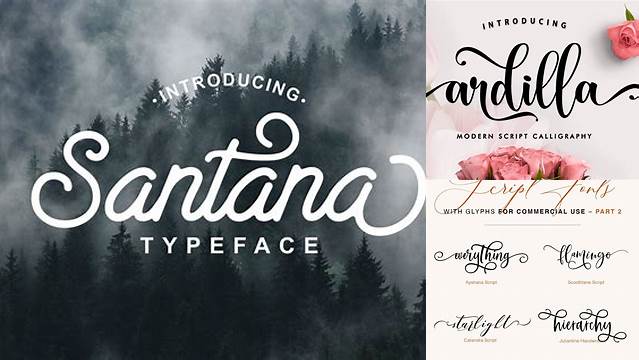
Download Free Script Fonts For Stunning Designs
Hey guys! Ever scrolled through amazing designs and wondered what that elegant, flowing font is? Chances are, it's a script font! Script fonts are super popular for adding a touch of class, personality, and a handwritten feel to your projects. The best part? There are tons of free script fonts out there, just waiting to be discovered. But with so many options, finding the perfect one can feel like searching for a needle in a haystack. Don't worry, though! This article is your ultimate guide to the world of free script fonts. We'll explore everything from where to find them, how to use them, and even some of the best free script fonts available right now. So, let's dive in and unlock the magic of script fonts!
What are Script Fonts?
So, what exactly are script fonts? Well, imagine the flowing, connected strokes of handwriting brought to life in digital form. That's essentially what a script font is! Free script fonts mimic the cursive style of handwriting, adding a touch of elegance and personality to any design. Unlike your standard blocky fonts, free script fonts have a more organic and fluid feel, making them perfect for projects where you want to convey a sense of warmth, creativity, or sophistication. Think wedding invitations, logos, quotes, and even website headers. Script fonts come in various styles, from formal and traditional to playful and modern, so there's definitely a script font out there to match your unique vision. Understanding the nuances of script fonts, such as stroke thickness, letter connections, and overall style, is key to using them effectively in your designs.
Why Use Free Script Fonts?
You might be wondering, why even bother with free script fonts when there are paid options available? Well, for starters, free script fonts are a fantastic way to elevate your designs without breaking the bank! Whether you're a student, a freelancer just starting out, or simply working on a personal project, free script fonts offer a cost-effective solution for adding that special touch. Plus, the sheer variety of free script fonts available is staggering. You can find everything from elegant calligraphy-style fonts to whimsical and playful scripts, ensuring you'll always have the perfect font for the job. Using free script fonts also allows you to experiment and try out different styles without committing to a purchase. This is especially helpful if you're not sure which script font will best suit your project. So, go ahead and explore the world of free script fonts – you might just be surprised at what you discover!
Where to Find the Best Free Script Fonts
Types of Free Script Fonts
Let's talk about the different types of free script fonts you'll encounter. It's not just one big category, you know! There's a whole spectrum of styles, each with its own unique personality. You've got your classic calligraphy-style scripts, which are elegant and formal, perfect for wedding invitations or branding for high-end businesses. Then there are the more modern and casual script fonts, which feel more handwritten and personal. These are great for logos, social media graphics, and website headers where you want to add a touch of warmth and authenticity. Free script fonts also come in various weights and thicknesses, from delicate and thin to bold and impactful. This allows you to choose a font that suits the specific needs of your project. Think about the overall tone and message you want to convey and then select a script font that aligns with that vision.
Calligraphy Script Fonts
Calligraphy script fonts are the epitome of elegance and sophistication. They mimic the graceful strokes of traditional calligraphy, making them ideal for projects that demand a touch of class. Think wedding invitations, elegant logos, and high-end branding materials. Free script fonts in this category often feature delicate lines, flowing curves, and beautiful flourishes. They evoke a sense of timeless beauty and are perfect for creating a sense of formality and refinement. When using calligraphy free script fonts, it's important to consider the readability of the text. Too many flourishes or overly intricate letterforms can make the font difficult to read, especially in smaller sizes. Choose a calligraphy script font that strikes a balance between beauty and legibility to ensure your message is clear and impactful.
Cursive Script Fonts
Cursive script fonts are similar to calligraphy fonts, but they often have a more casual and approachable feel. They mimic the flowing, connected letters of everyday handwriting, making them perfect for projects where you want to convey a sense of warmth and authenticity. Free script fonts in this style are great for creating a personal touch, such as in handwritten notes, signatures, or informal invitations. They're also a popular choice for logos and branding materials that aim to project a friendly and approachable image. When selecting cursive free script fonts, pay attention to the letter connections and the overall flow of the text. A well-designed cursive font should be easy to read and have a natural, organic feel.
Handwritten Script Fonts
Handwritten script fonts are all about capturing the unique character and personality of actual handwriting. They often feature slight imperfections and variations in stroke thickness, which adds to their charm and authenticity. These free script fonts are perfect for projects where you want to create a personal and relatable feel, such as in blog headers, social media graphics, or website testimonials. They're also a great choice for adding a touch of human touch to digital designs. When using handwritten free script fonts, it's important to choose one that is still legible and easy to read. While imperfections are part of the charm, you don't want the font to be so messy that it becomes difficult to decipher.
Modern Script Fonts
Modern script fonts are a fresh and contemporary take on traditional script styles. They often feature clean lines, simplified letterforms, and a minimalist aesthetic. These free script fonts are perfect for projects that need a touch of sophistication without being overly formal. They're a popular choice for logos, website headers, and branding materials for modern businesses. Free script fonts in this category often have a sleek and stylish feel, making them a great option for projects that want to convey a sense of innovation and forward-thinking. When using modern script fonts, consider pairing them with a clean and simple sans-serif font for a balanced and contemporary look.
Casual Script Fonts
Casual script fonts are all about fun and informality. They often feature playful letterforms, quirky details, and a relaxed vibe. These free script fonts are perfect for projects that want to convey a sense of fun and friendliness, such as children's books, party invitations, or social media graphics. Free script fonts in this style are great for adding a touch of personality and whimsy to your designs. When using casual script fonts, don't be afraid to experiment with different colors and layouts to create a playful and eye-catching design.
Conclusion: Unleash Your Creativity with Free Script Fonts
So, there you have it! A comprehensive guide to the wonderful world of free script fonts. From understanding the different types of script fonts to knowing where to find them and how to use them effectively, you're now equipped to unleash your creativity and add a touch of elegance and personality to your designs. Remember to always check the font's license before using it, especially for commercial projects. And don't be afraid to experiment with different font pairings and layouts to find the perfect combination for your project. With so many amazing free script fonts available, there's no limit to what you can create! Happy designing, guys!